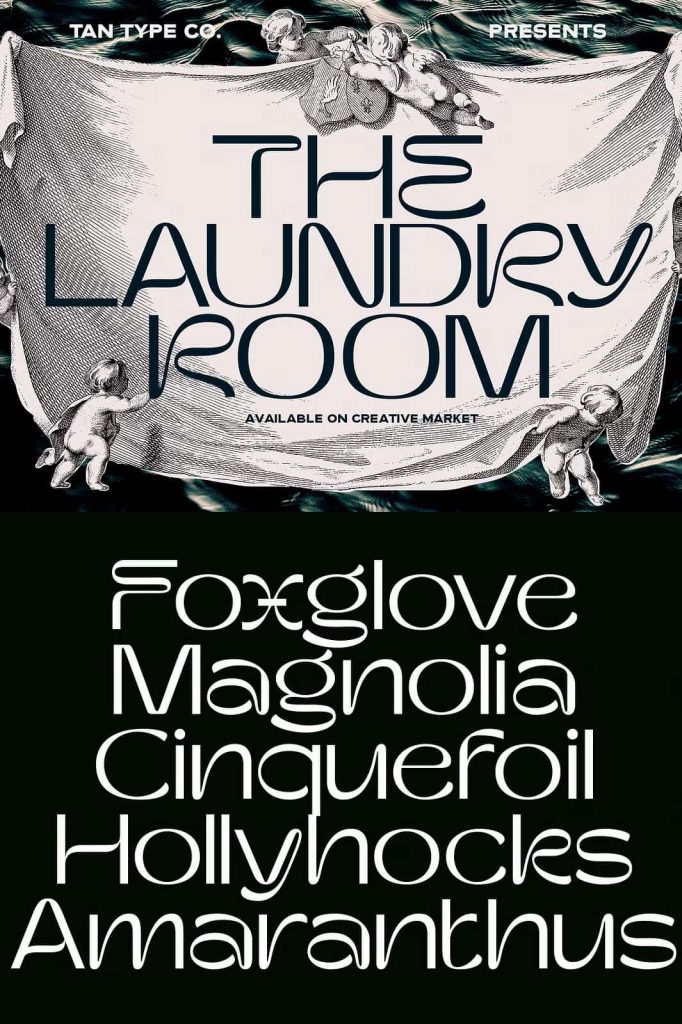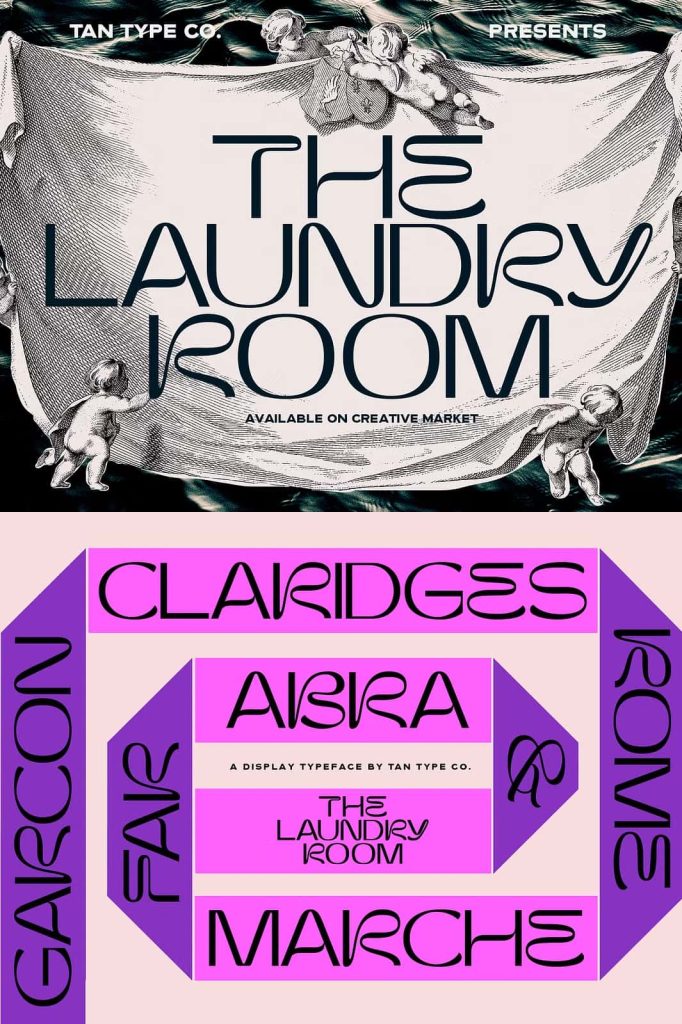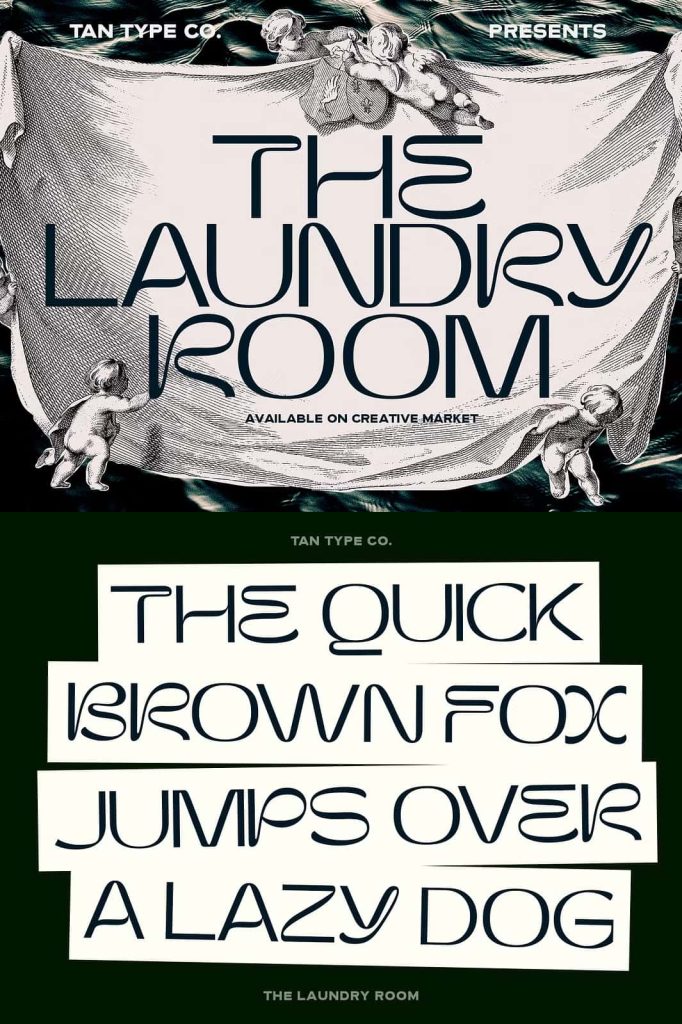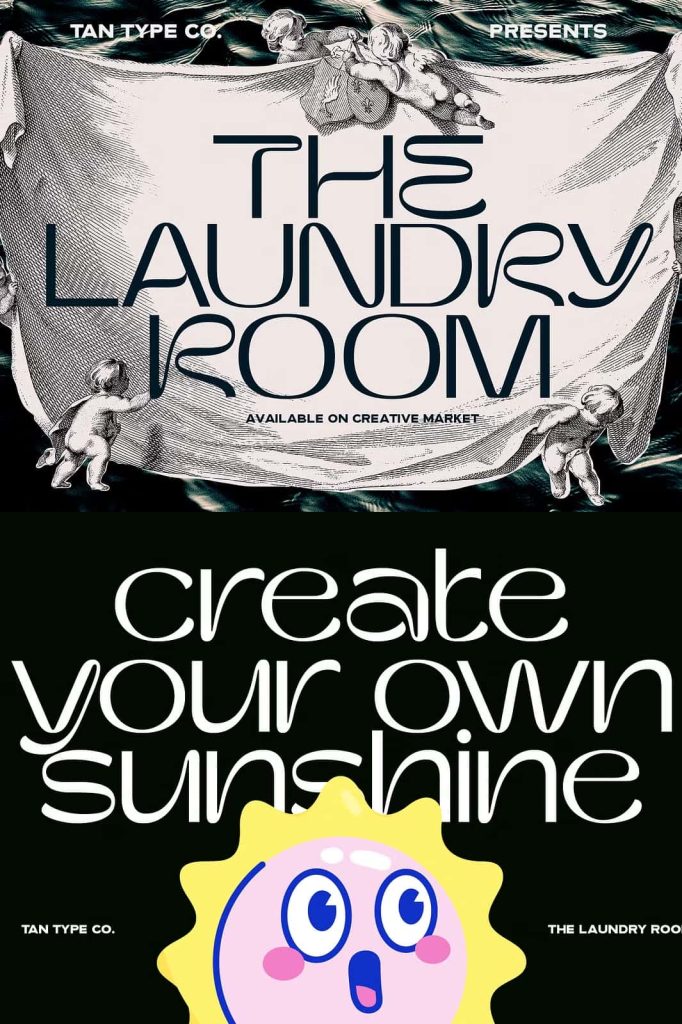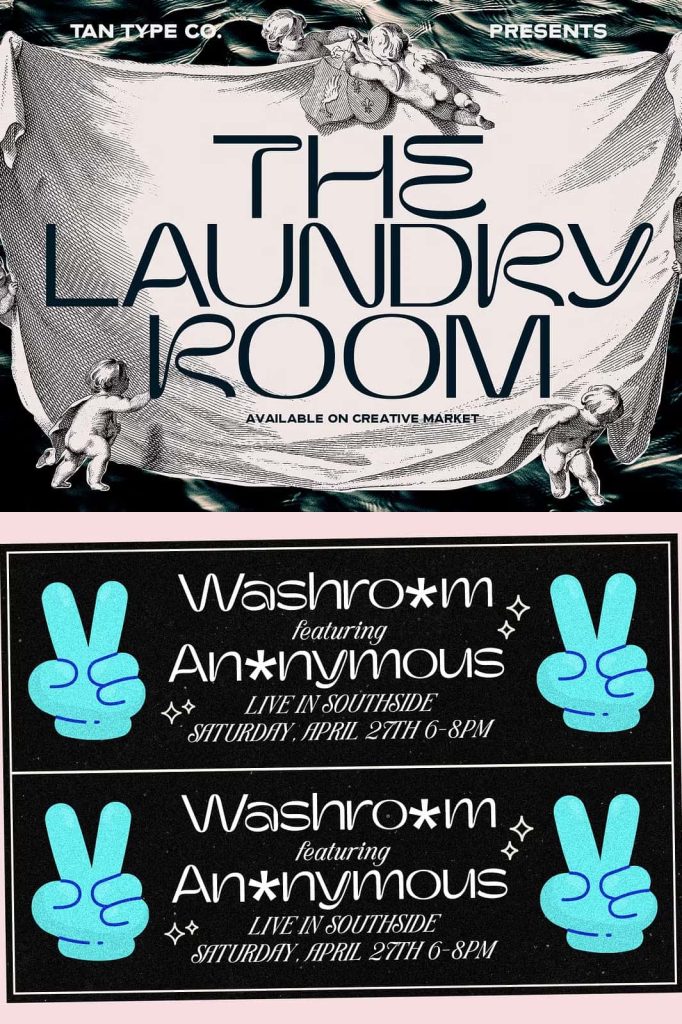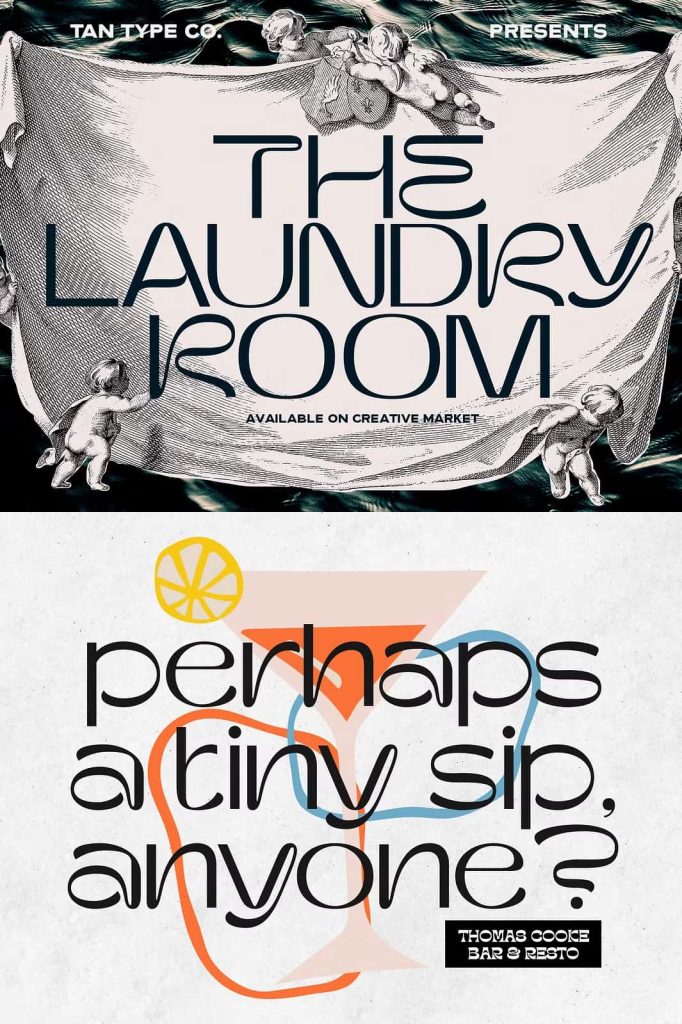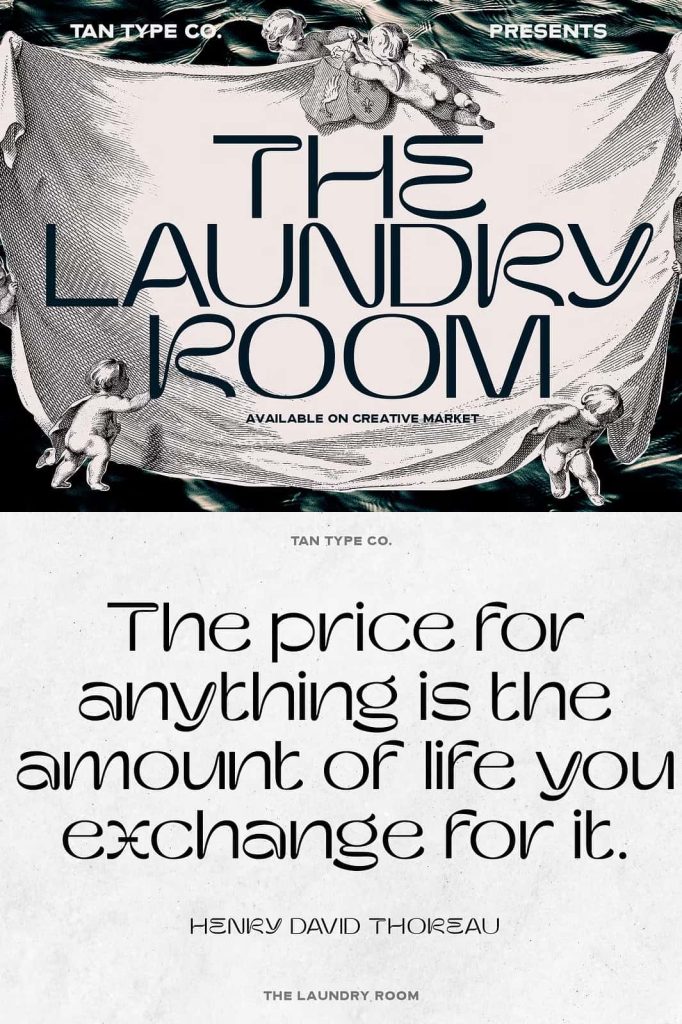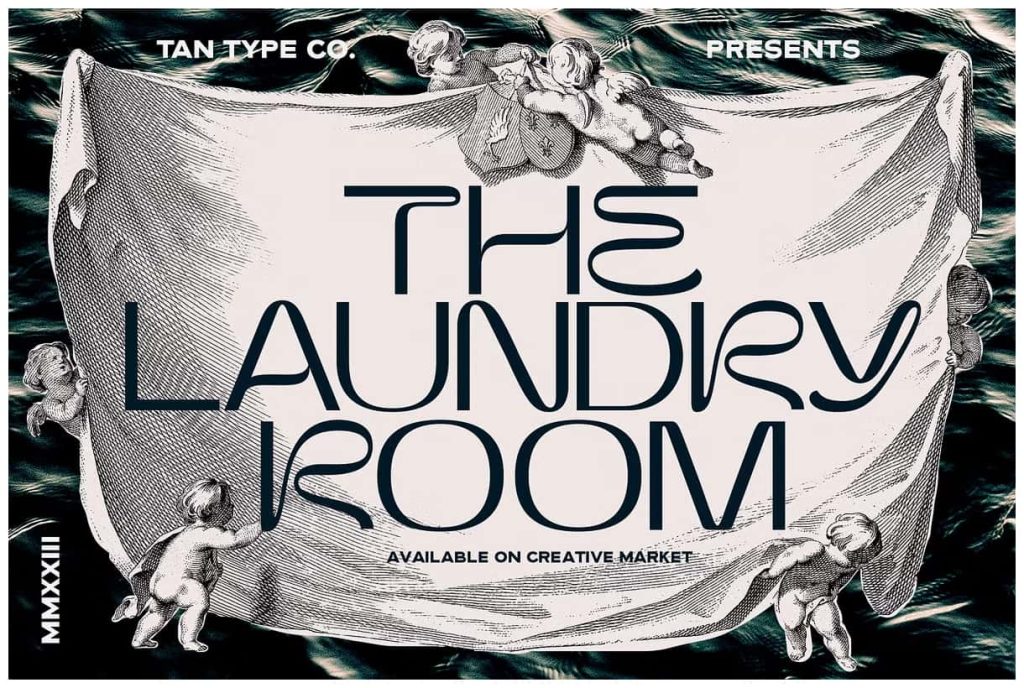
TAN – THE LAUNDRY ROOMleastedApril 17, 2025Fonts TAN – THE LAUNDRY ROOM is a fun display serif. Wonky yet composed and retains the legibility. Download